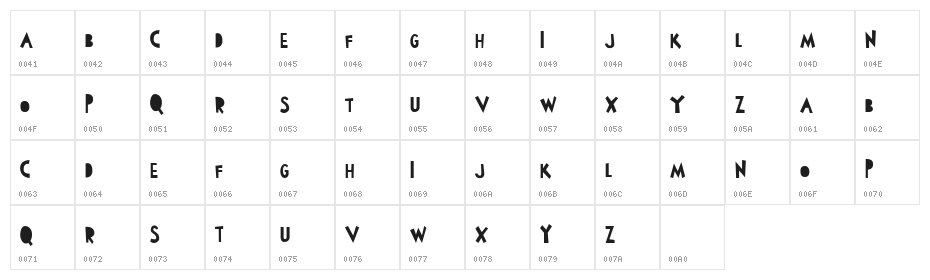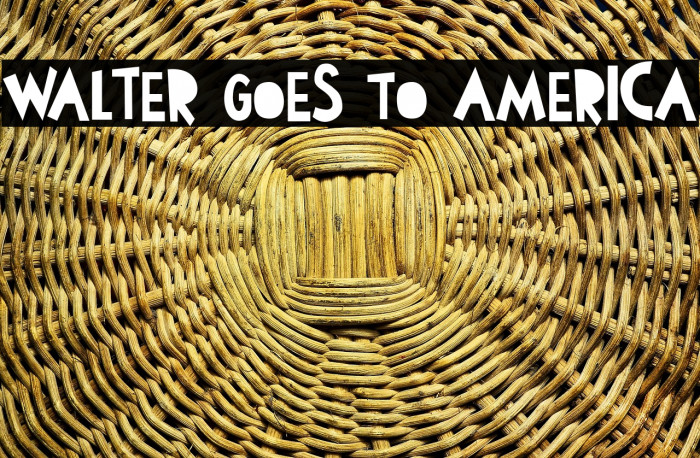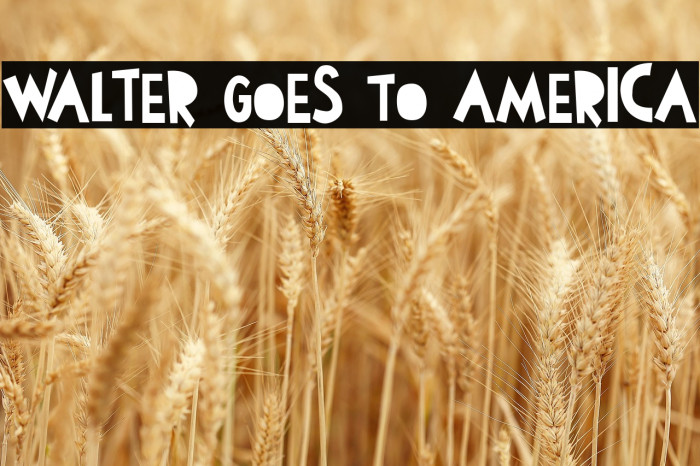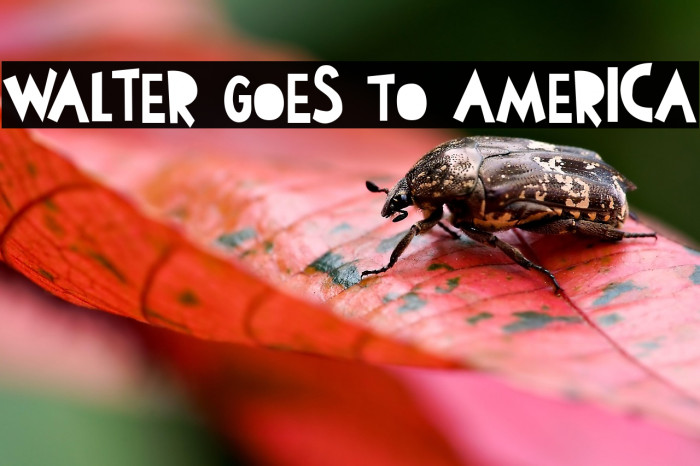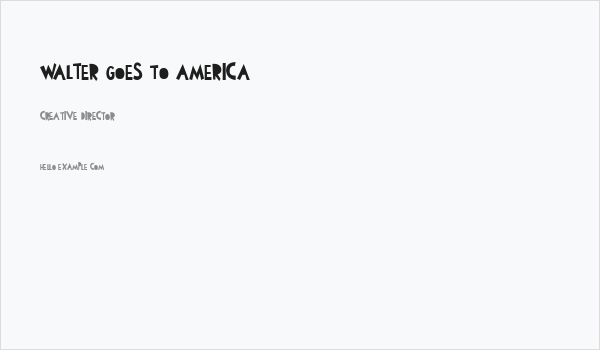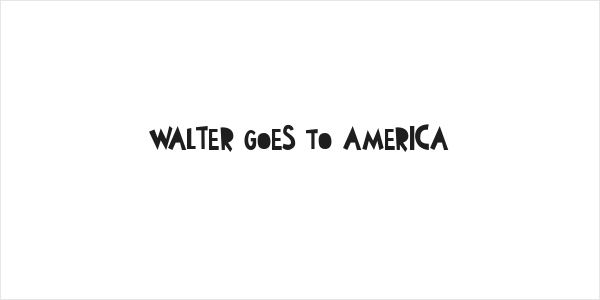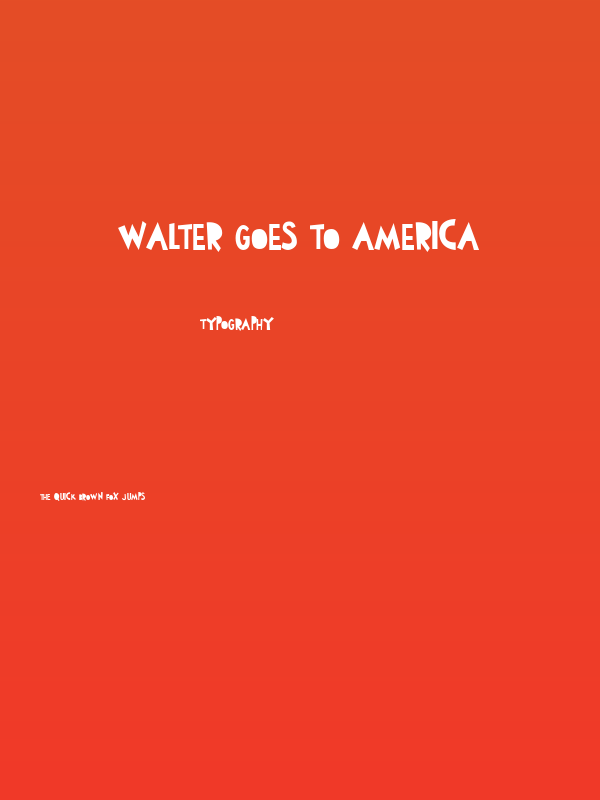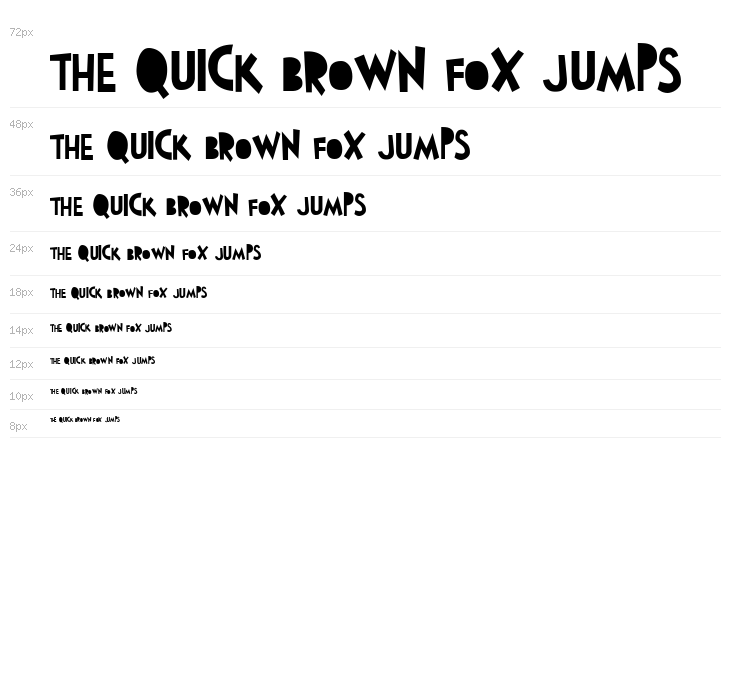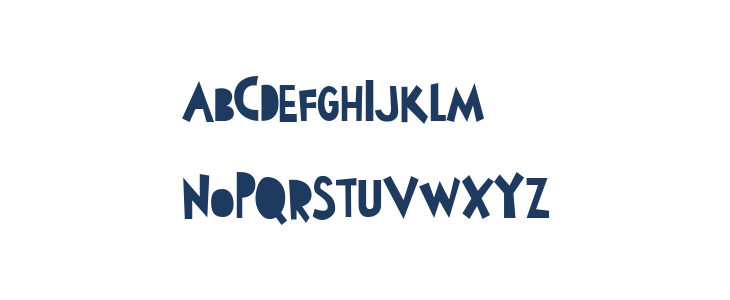
Walter Goes To America Font
Walter Goes To America Description
This font features a playful and bold style with a unique, quirky character design. The uppercase letters are characterized by their exaggerated, angular shapes, giving them a dynamic and energetic appearance. The lowercase letters maintain a similar playful aesthetic, with a slightly more rounded form that complements the uppercase. The numbers and special characters follow the same design principles, ensuring consistency throughout the typeface. The font's distinctive style makes it ideal for projects that require a fun and engaging visual element.
| Proposed Projects | Ideal for children's books, playful branding, posters, and event invitations. |